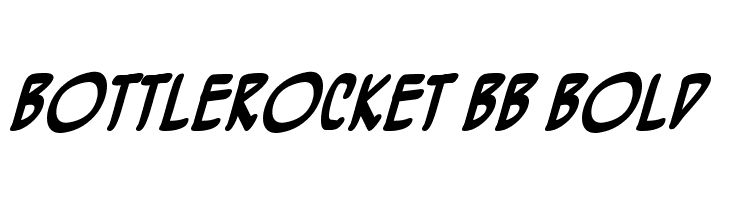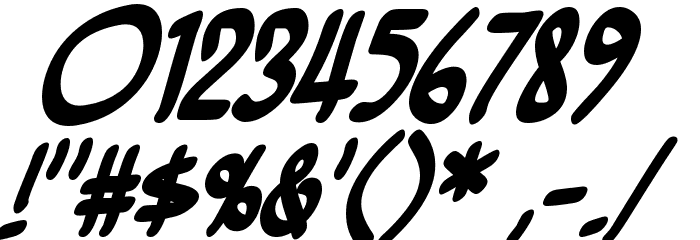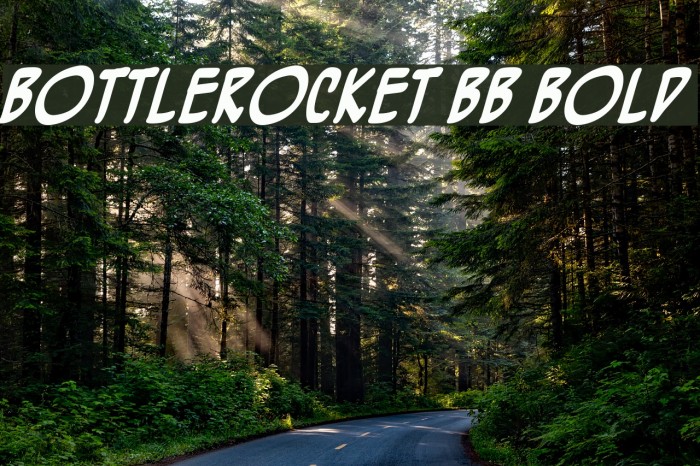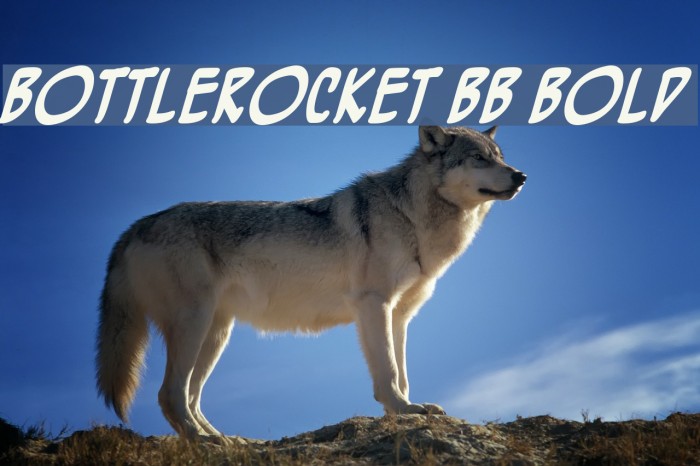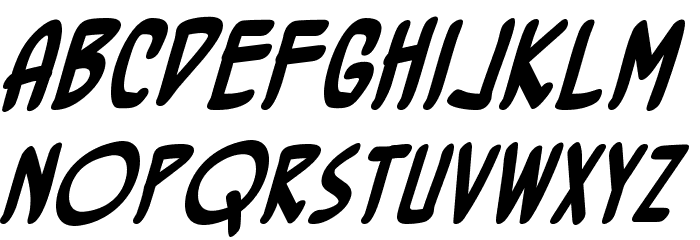
BottleRocket BB Bold Font
BottleRocket BB Bold Description
This font features a bold and energetic script style with a playful and dynamic appearance. The characters are slightly slanted, giving a sense of motion and fluidity. The strokes are thick and rounded, contributing to a friendly and approachable look. The uppercase and lowercase letters maintain a consistent style, with a slight variation in height that adds to the casual feel. The numbers and special characters are designed to match the overall aesthetic, ensuring a cohesive look across all text elements. This font is ideal for projects that require a lively and informal touch.
A bold, playful script font with dynamic, rounded strokes from Uncategorized fonts.
- Proposed Projects: Ideal for branding, posters, greeting cards, and social media graphics.
- Overall Style: Playful